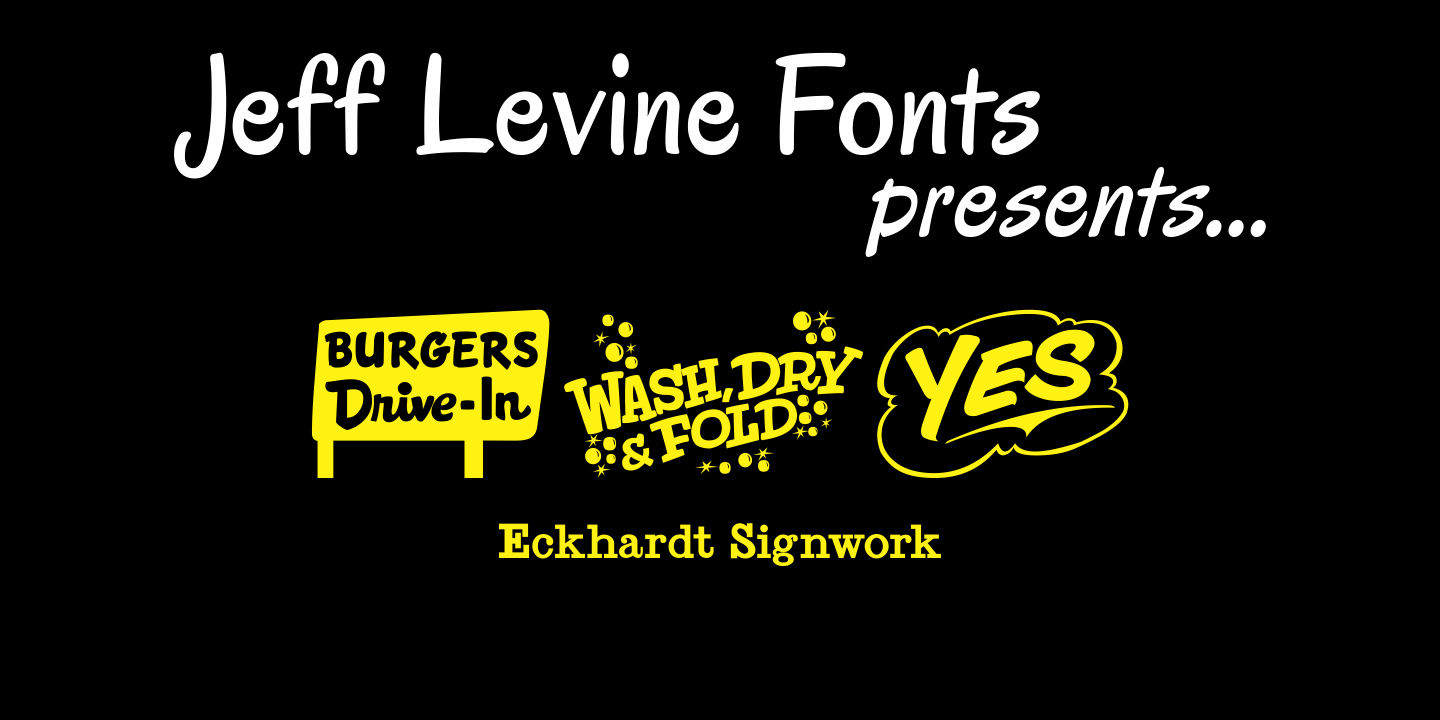
Eckhardt Signwork
Eckhardt Signwork JNL was inspired by visual images collected by two great nostalgia sites: www.forgotten-ny.com and www.norelevance.com.
The vintage signage photographed and saved for posterity on both sites reflect an age when hand-crafted work was the rule, rather than the exception [as is today].
Although somewhat limited in scope, this font can best be used for retro or nostalgic embellishments in ads or design work. There's also a generous amount of blank panels to insert your own copy for special projects.
As with previous typefaces in this series, the font is named in honor of the late Al Eckhardt, owner of Allied Signs in Miami, Florida - a talented sign man and Jeff Levine's good friend for 18 years.